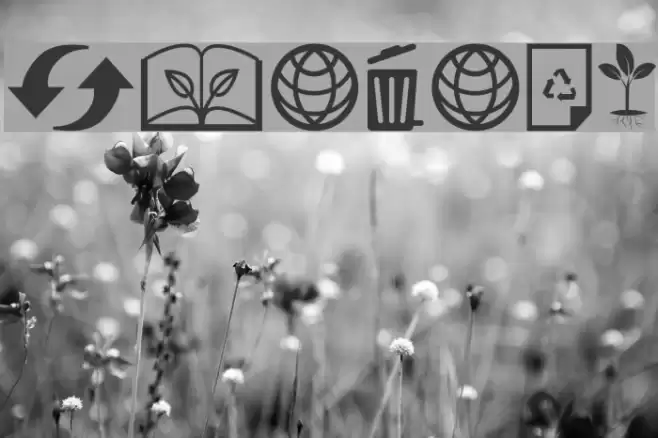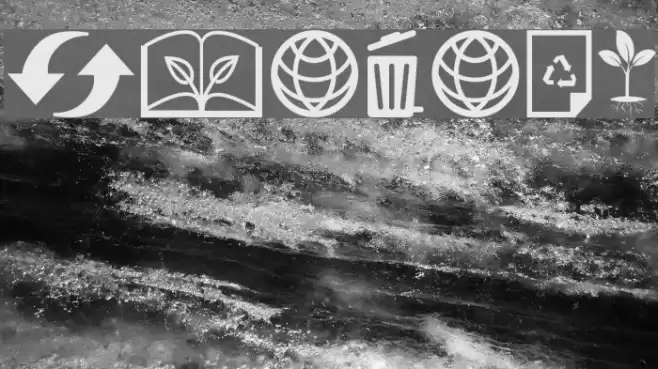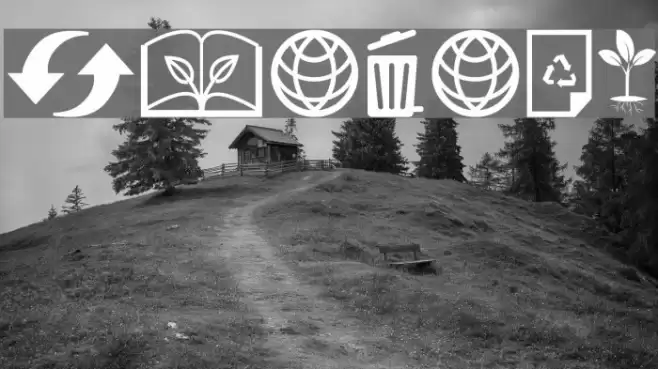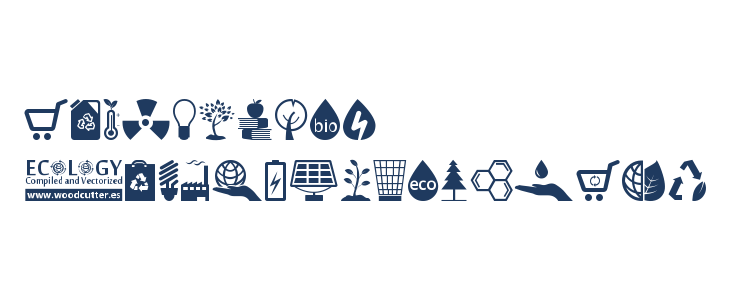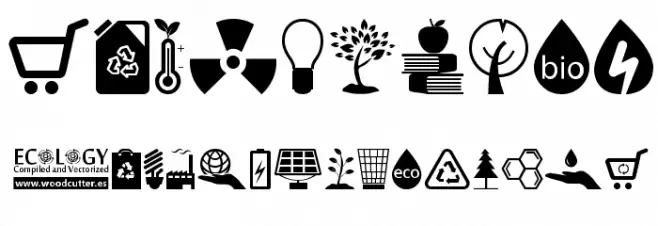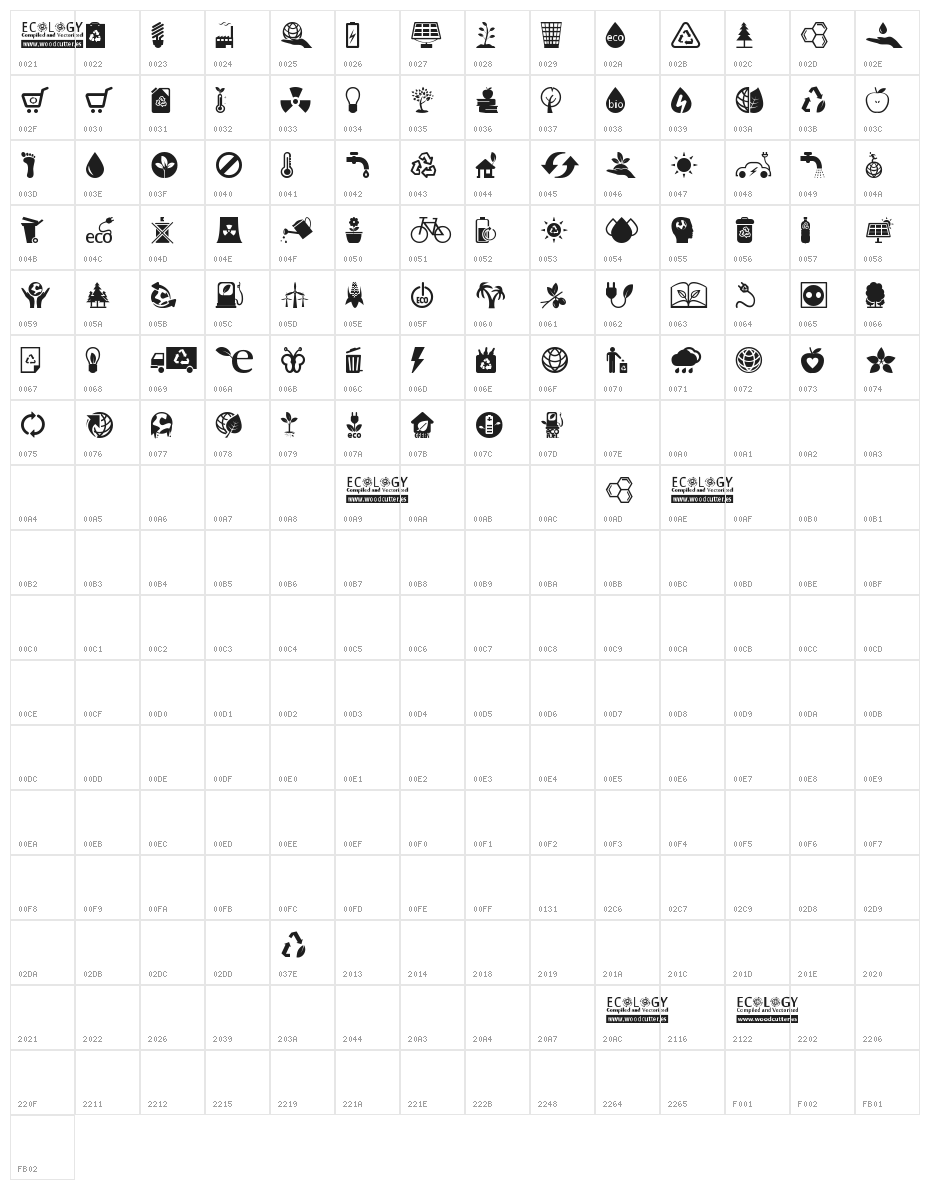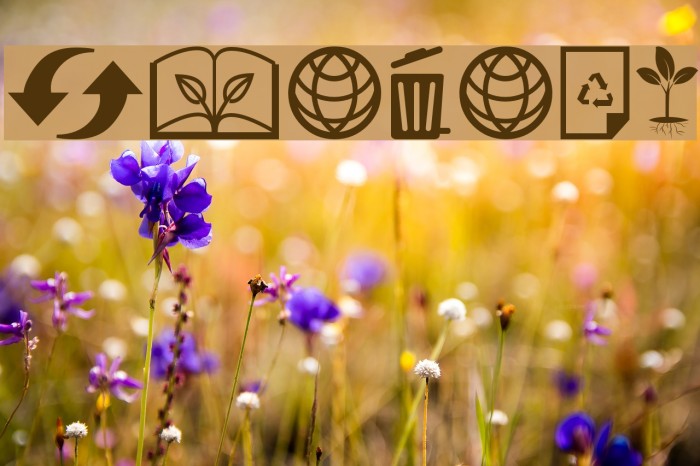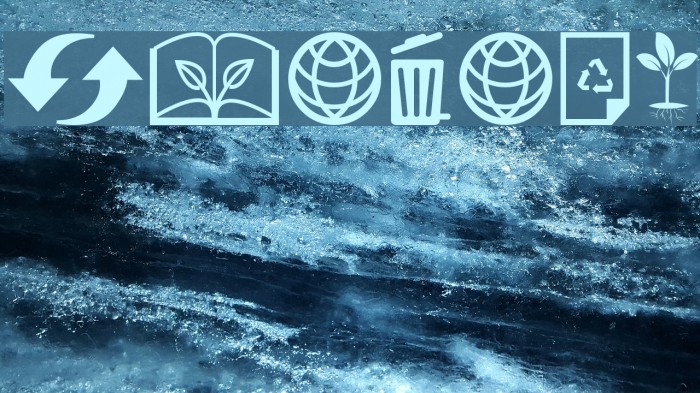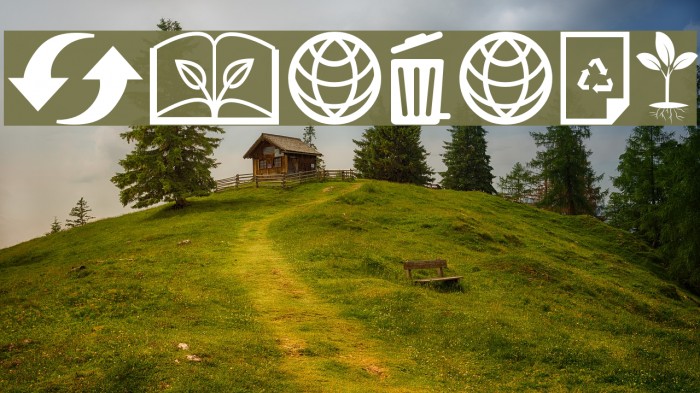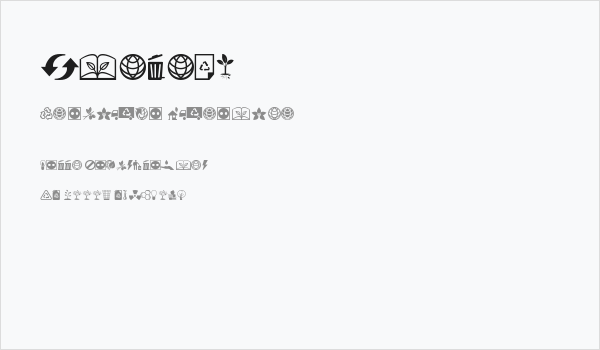
Ecology Font
Ecology Description
A collection of ecology-themed pictograms and icons, featuring bold, solid black shapes with minimal detail, representing concepts like recycling, renewable energy, nature, and sustainability. The style is consistent, with clear silhouettes and high contrast, making each icon easily recognizable.
- Proposed Projects: Environmental campaigns, educational materials, infographics, eco-friendly product packaging, website icons.
- Overall Style: Modern, Decorative
- Use Case: Logos, Icons, Signage, Infographics